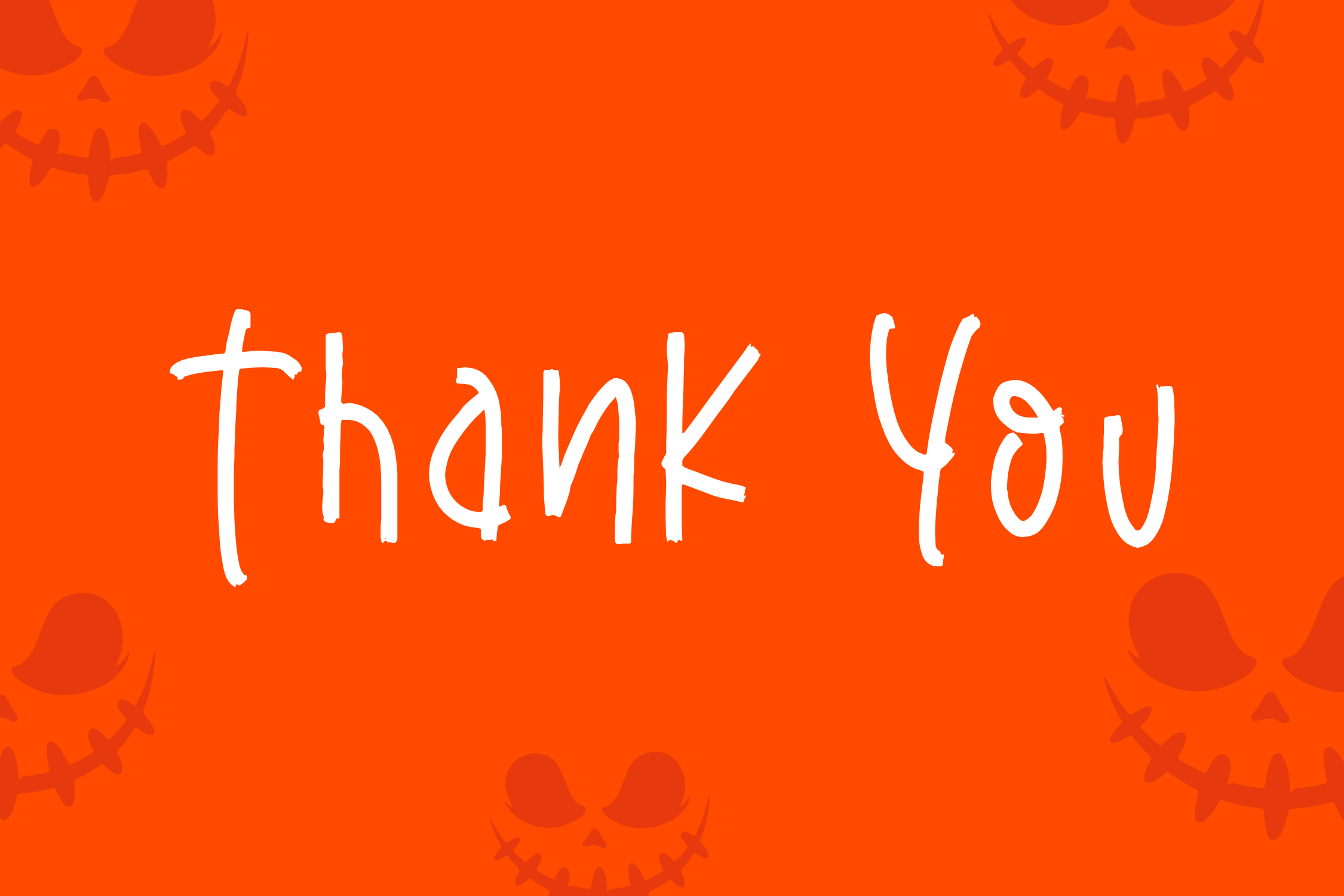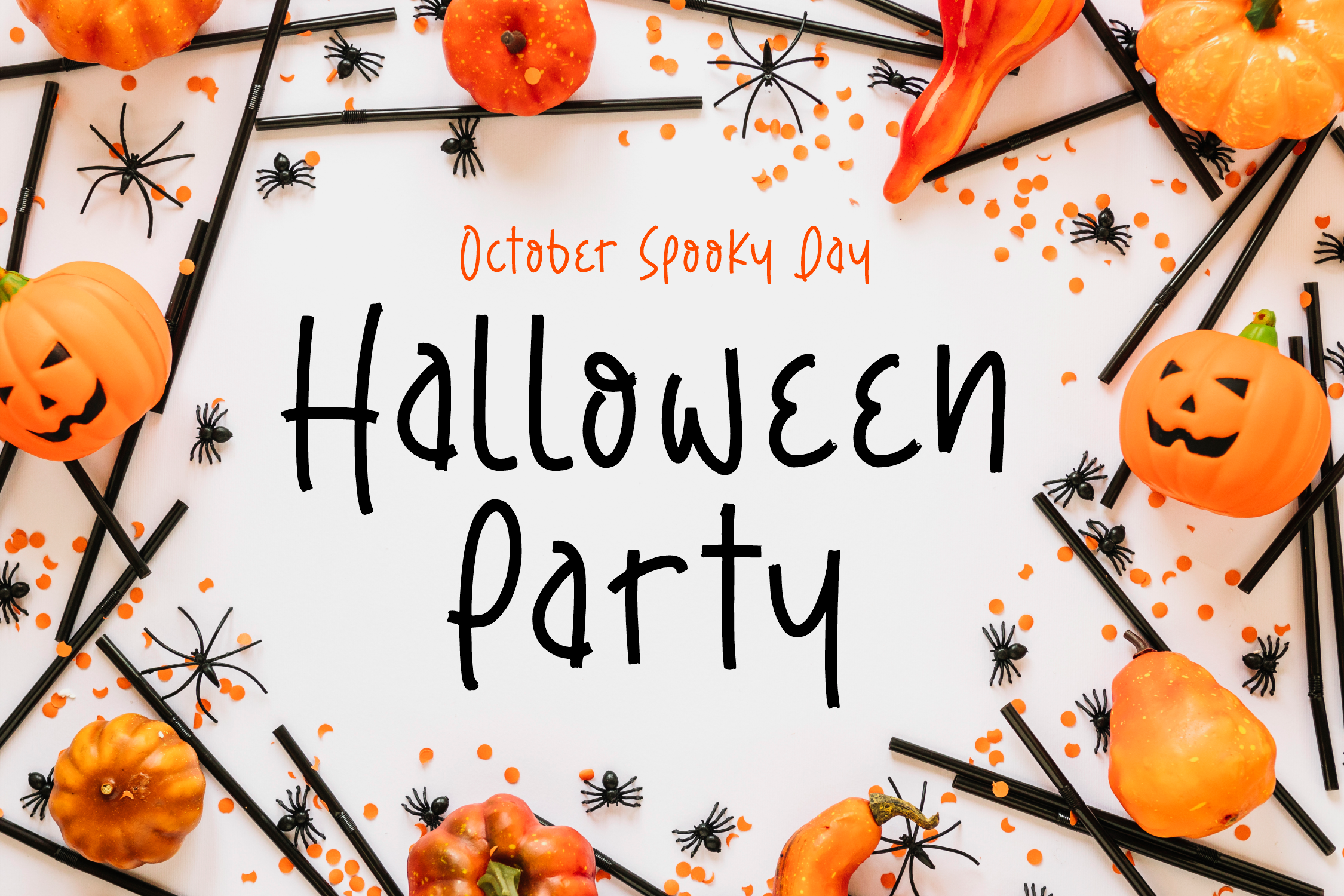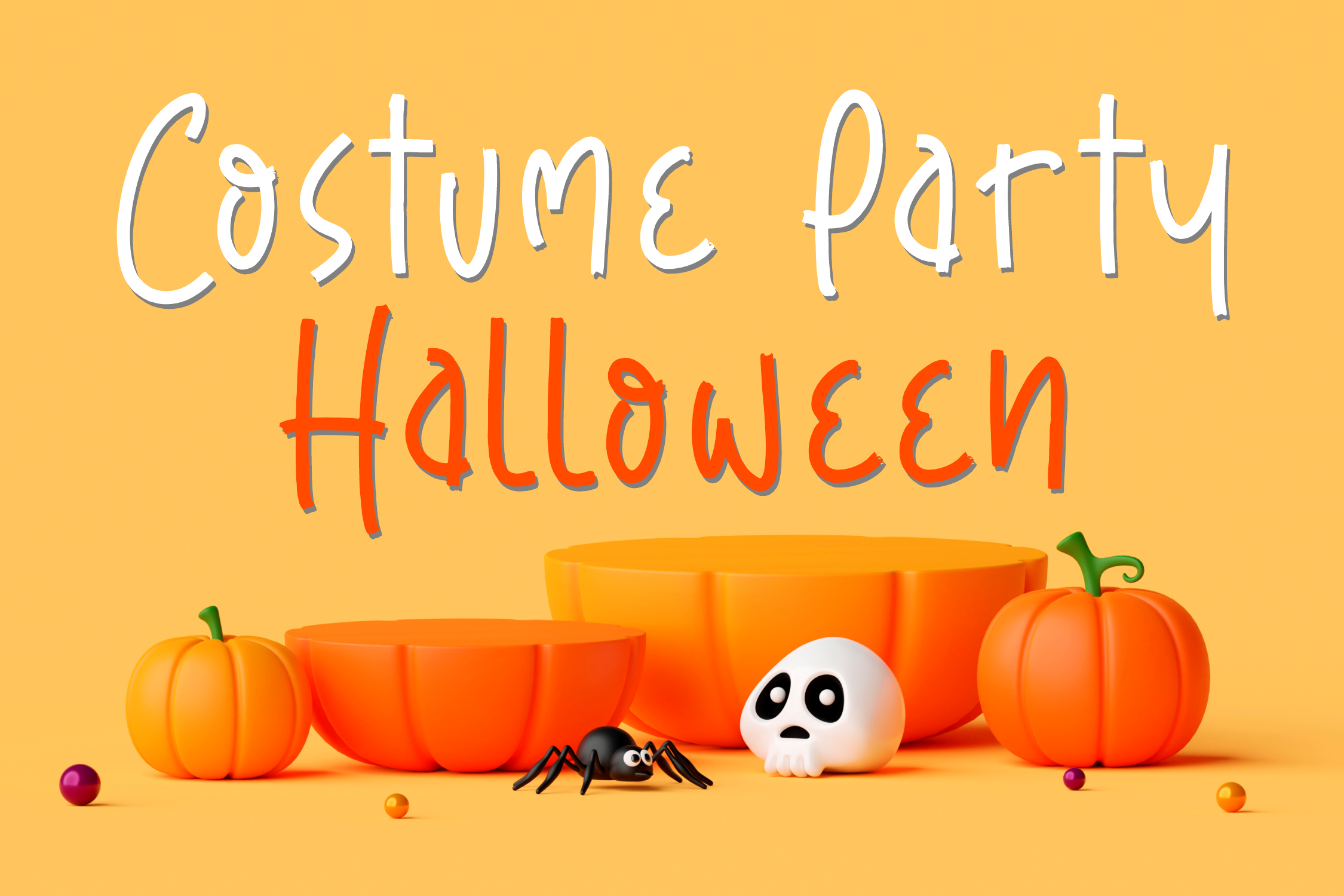
Mashoke Pumpkin Font
Mashoke Pumpkin Handwritten Font is a Spooky Playful Font, suitable for any projects such as: logos, branding projects, homeware designs, product packaging, mugs, quotes, posters, shopping bags, t-shirts, book covers, name card, invitation cards, greeting cards, label, photography, watermark, special events, and all your other lovely projects that need a beautiful script taste.